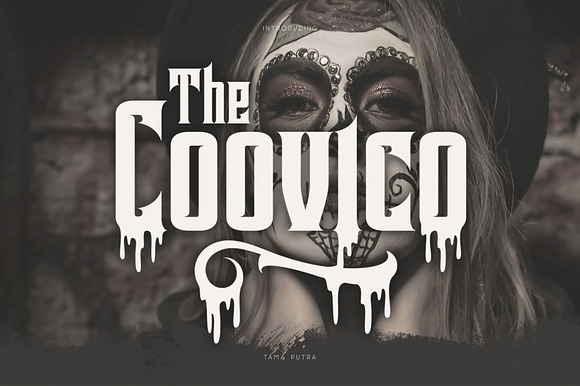
Coovico Font
Coovico is a typeface inspired from horror style and blood accent.
It includes a full set of uppercase and lowercase letters as well as multi-lingual and currency support, numerals, punctuation, alternates, ligatures and some extra glyphs.
Character Set A-Z (Uppercase & Lowercase)
Accents (Multilingual characters)
ss01, ss02, ss03, ss04
Standard & Discretionary Ligatures
Coovico typeface is suitable font for creating beautiful things and many creative work.
Coovico Font by Vacatype Co. fits naturally into Branding, posters, packaging, typography.